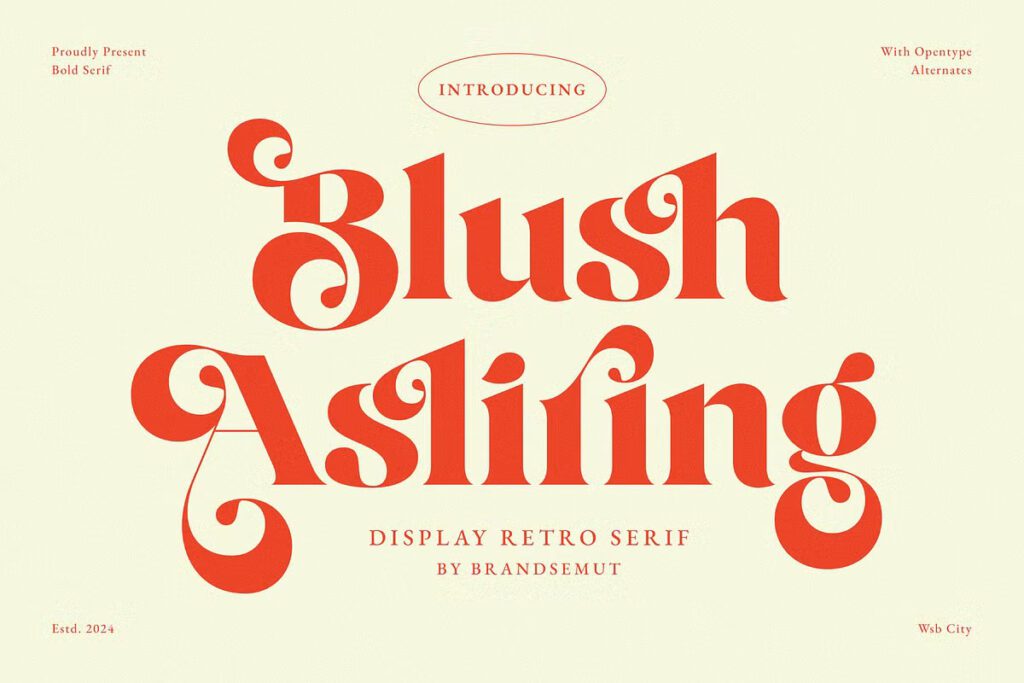
Blush Asliring: The Retro Display Serif for Classy, Elegant Designs
When it comes to making a bold, stylish impression, Blush Asliring is the font you need. This retro display serif brings elegance, class, and versatility to any design project. Whether you’re working on branding, logos, magazine layouts, or product packaging, Blush Asliring offers the perfect balance of sophistication and charm.
What is Blush Asliring?
Blush Asliring is a retro-inspired display serif font designed for impactful headings and standout text elements. Its clean lines and smooth curves bring a vintage feel while maintaining a modern elegance, making it an excellent choice for designers looking to add a touch of class to their projects. The font comes equipped with ligatures and alternate characters, providing even more customization options for creating unique and memorable designs.
Key Features of Blush Asliring
Elegant Retro Vibe:Blush Asliring blends retro style with contemporary elegance, making it perfect for a wide range of design projects, from branding to editorial work.
Ideal for Display:This font is best suited for headings, logos, branding, and other display uses. It offers a striking presence that catches the eye and adds sophistication to any design.
Clean Lines and Smooth Curves:Blush Asliring’s carefully crafted letterforms give your designs a polished, professional look, while its smooth curves and clean lines ensure readability and visual appeal.
Ligatures and Alternates:With an array of ligatures and alternate characters, Blush Asliring gives you the flexibility to experiment and add a personal touch to your typography, ensuring your designs are one of a kind.
Versatile Design Applications:Whether you’re designing magazine covers, product packaging, invitations, or corporate branding, Blush Asliring fits seamlessly into a variety of creative projects, helping you achieve a refined, cohesive look.
How to Use Blush Asliring in Your Projects
Branding and Logos:The elegant, retro feel of Blush Asliring makes it a great choice for luxury or vintage-inspired branding projects. Use it to create unique and memorable logos that leave a lasting impression.
Magazine and Editorial Layouts:If you’re working on a magazine or editorial layout, Blush Asliring’s classy serif design is perfect for making your headings and titles stand out in a stylish way.
Invitations and Packaging:Add a sophisticated touch to product packaging or invitation designs with the refined look of Blush Asliring. Its smooth curves and stylish ligatures make it ideal for upscale projects.
Why Choose Blush Asliring?
Classic Yet Modern:Blush Asliring successfully merges retro inspiration with modern design principles, giving you a versatile font that works across a range of styles and projects.
Customizable Typography:With its built-in ligatures and alternate characters, Blush Asliring allows you to create truly unique typographic designs that stand out.
Perfect for Display:The font is designed for display purposes, ensuring that your headings, logos, and other important text elements make an impact while maintaining readability and elegance.
Elevate your next design project with Blush Asliring – Display Retro Serif. Ideal for branding, logos, packaging, and more, this font adds a touch of class and retro elegance to your work.